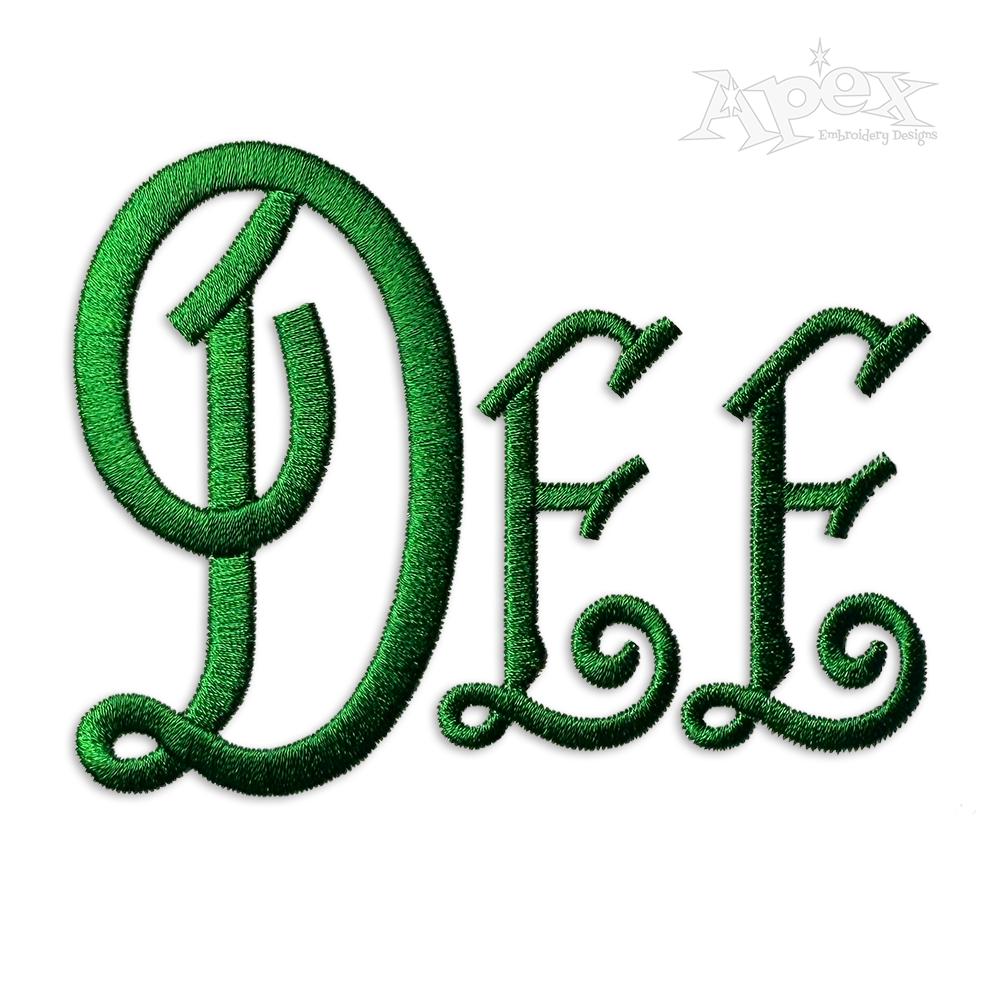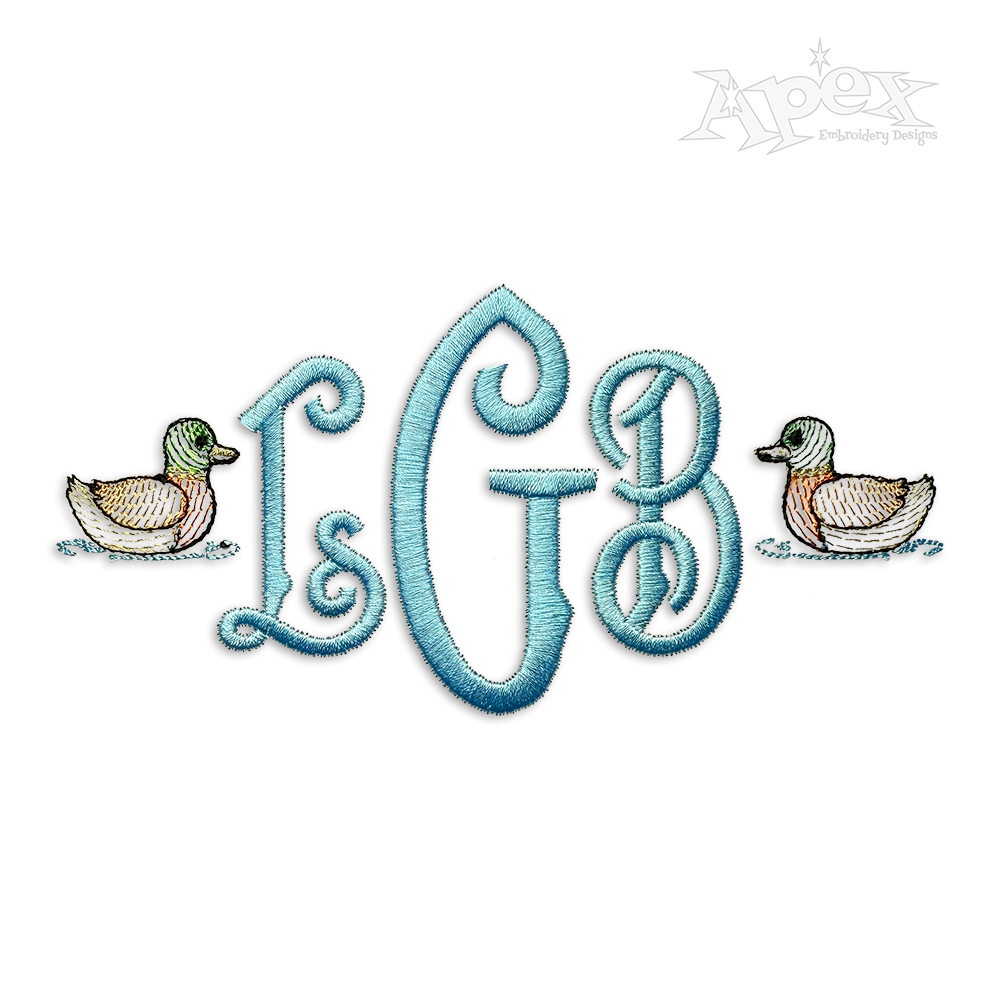
Winston Embroidery Font
Conceived with the understated refinement of Savile Row tailoring and the enduring charm of vintage stationery, the Winston Embroidery Font brings an air of aristocratic distinction to the embroidery hoop. When digitizing Winston, our vision was to create a satin stitch alphabet that commands attention through quiet confidence rather than ostentation. Each letterform carries a majestic poise, balancing firm vertical anchors with fluid, sculpted curves that catch the light like polished silk. Whether stitched onto crisp heirloom cotton or textured waffle weave, Winston infuses every personal touch with the heritage of bespoke craftsmanship.
Winston Craft & Letterform Details
The beauty of Winston lies in the architectural integrity of its digitized stitches. Rather than simply applying automated fills, our digitizers hand-charted the stitch pathing for each individual glyph to honor the traditional movement of the needle. Double-underlay framing stabilizes the fabric grain before the top satin layer is laid down, effectively preventing fabric puckering and edge distortion.
Notice the intentional graduation of stitch angles throughout the serifs and junctions—these calculated micro-shifts ensure the embroidery reflects ambient light dynamically, lending a three-dimensional luster to the finished embroidery. Calibrated push-and-pull compensation preserves pristine circular geometry and razor-sharp column terminals across varied fabric weights, delivering a flawless stitch-out every time your machine runs.